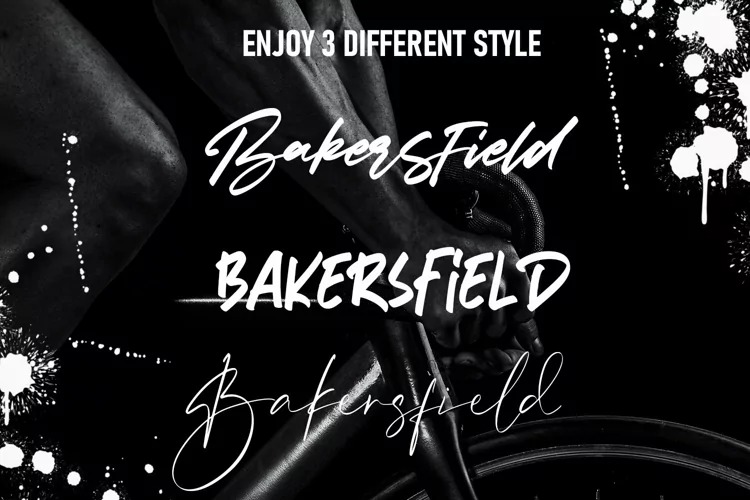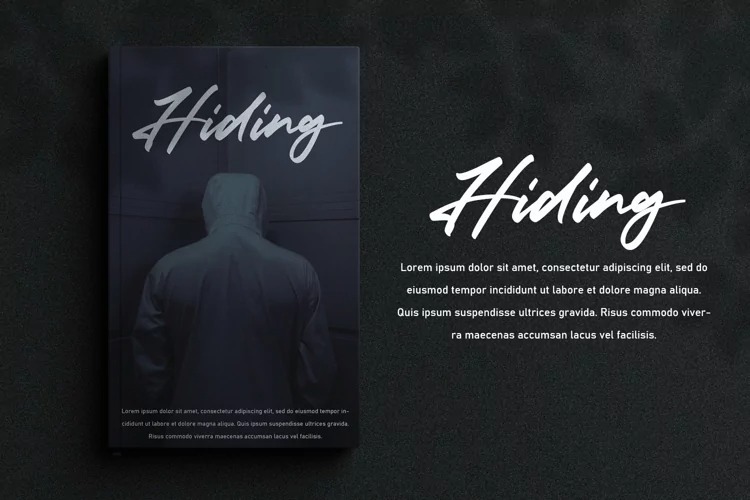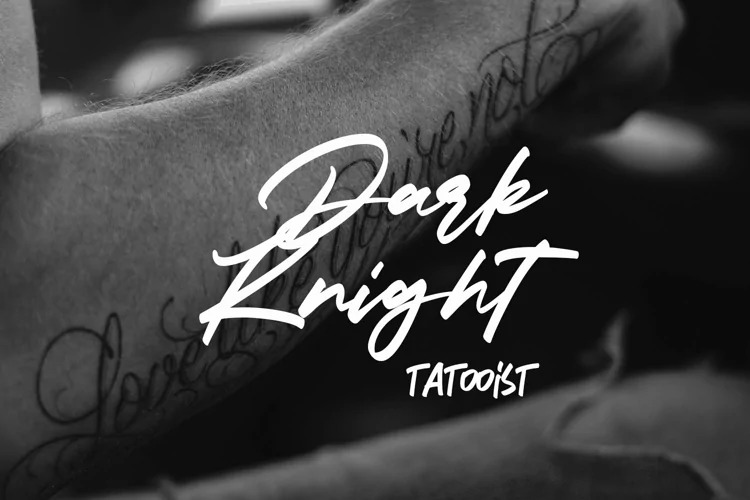
Bakersfield Font
Bakersfield Script Font is handmade and organic script loaded with ligature glyphs and multilingual support. Made from font designer named Arendxstudio. It’s a combination typeface with 3 different style variations that will make you feel easy to apply in your various design projects Bakersfield came with opentype features such stylistic alternates, stylistic sets & ligatures good for logotype, poster, badge, book cover, tshirt design, packaging and any more.